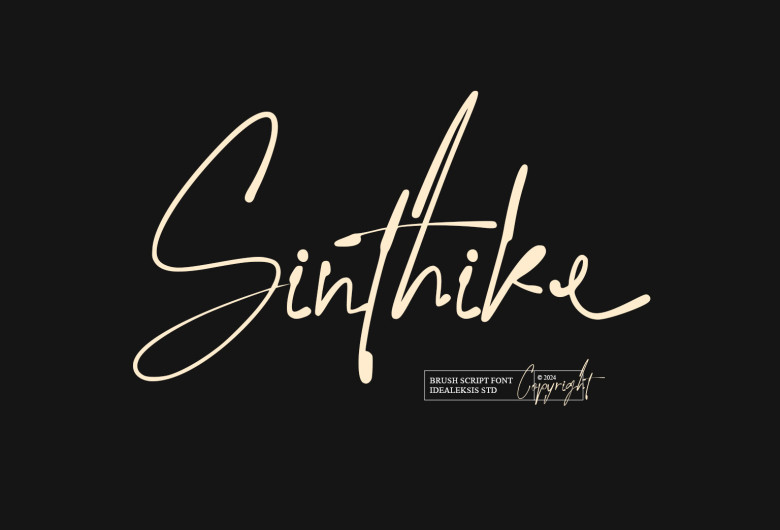
Sinthike Font
Sinthike Signature is an exquisite handwritten script font, offering each character its own refined and individual aesthetic. Drawing its inspiration from hand-crafted strokes, this font creates a warm yet welcoming handwritten appearance reminiscent of genuine handwriting – every letter being uniquely drawn in terms of strokes and curves, creating an inviting yet sophisticated atmosphere – ideal for projects such as wedding invitations and greeting cards, brand logos or any other elements that require individuality and sophistication in design projects that need individual appearance like brand logos or wedding invitations etc.
“Sinthike Signature” is also perfect for anyone wanting to add the human element into their designs using stunning handwritten font.
Sinthike Signature Script Font